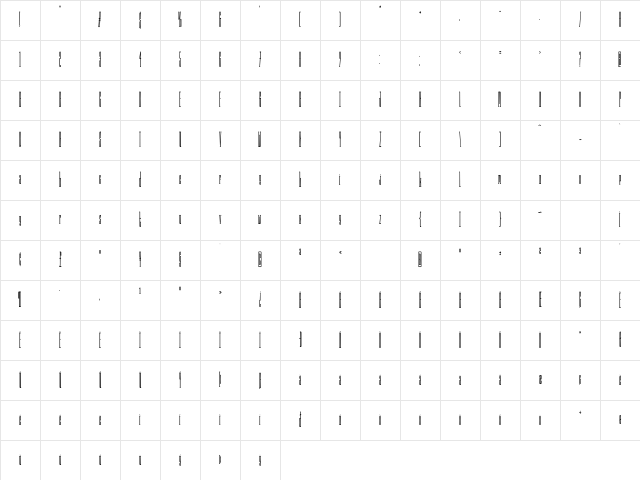
Complete Long Rider Alternative Regular glyph index. Displaying only characters natively supported by Long Rider Alternative Regular font.
Long Rider Alternative is a composed and adaptable typeface that performs quietly and consistently across a wide range of design contexts.